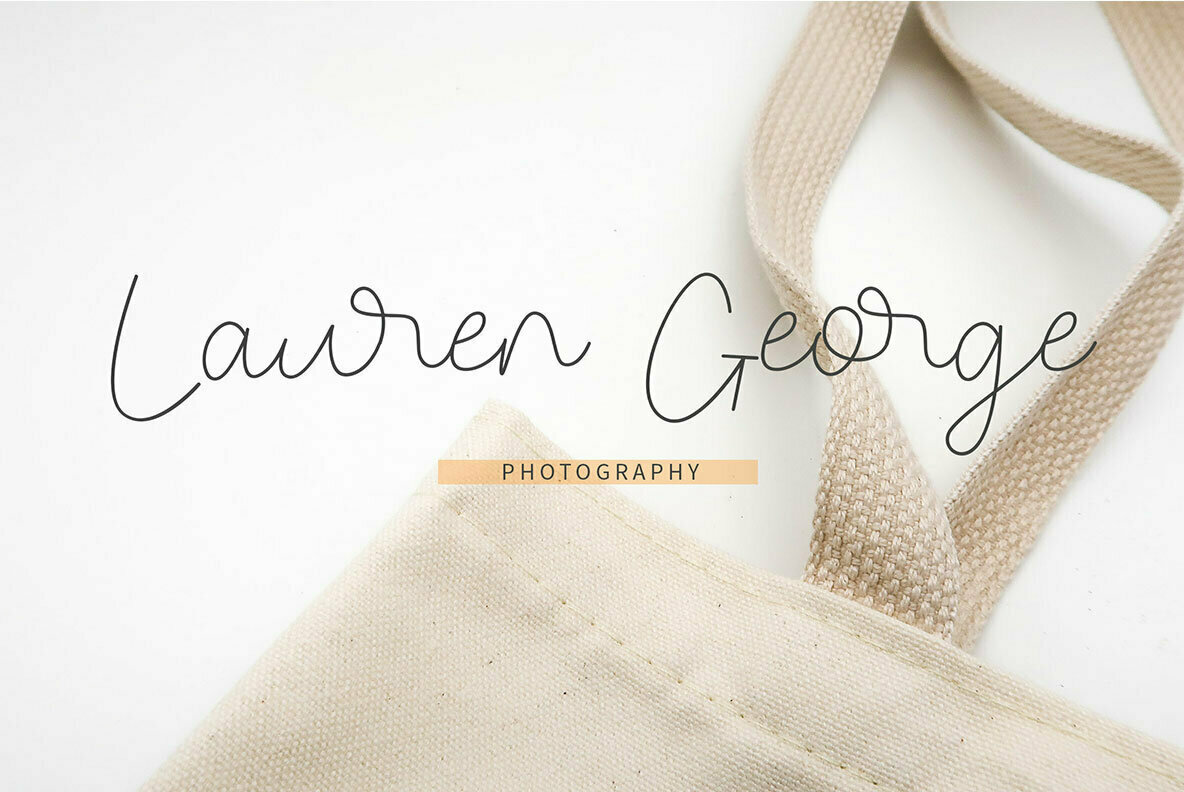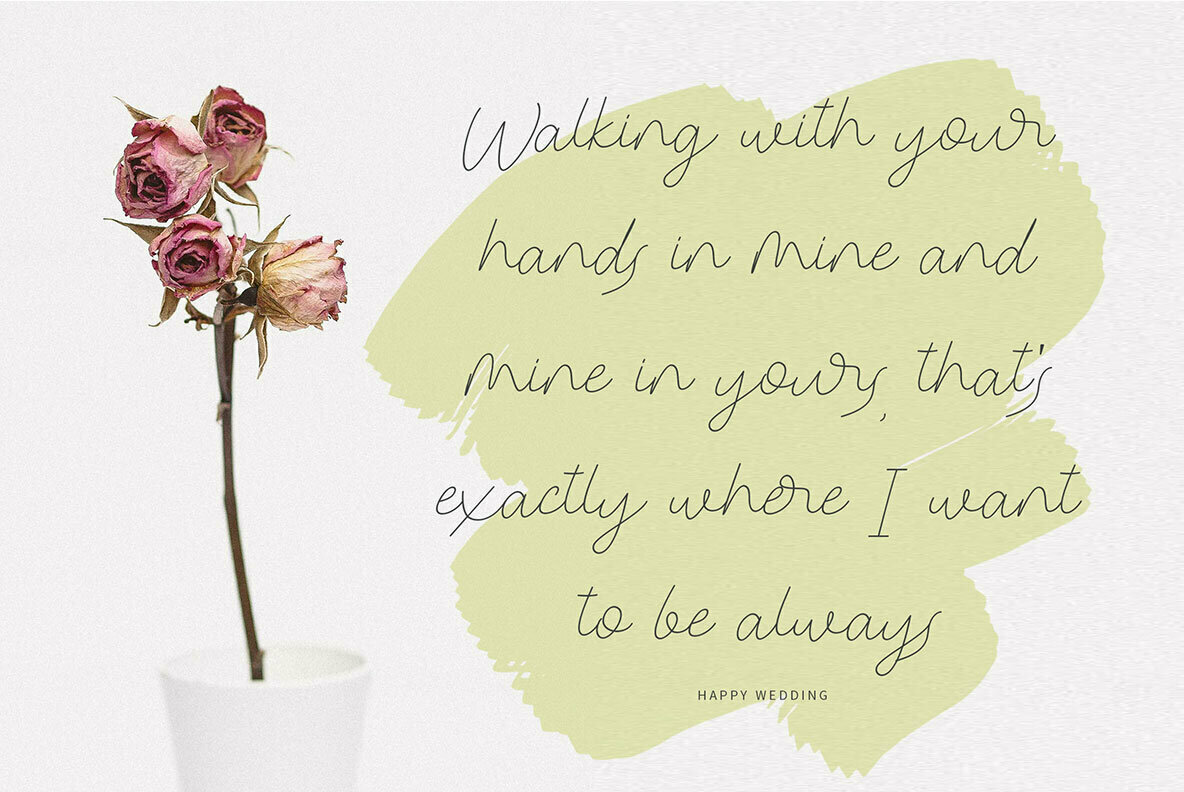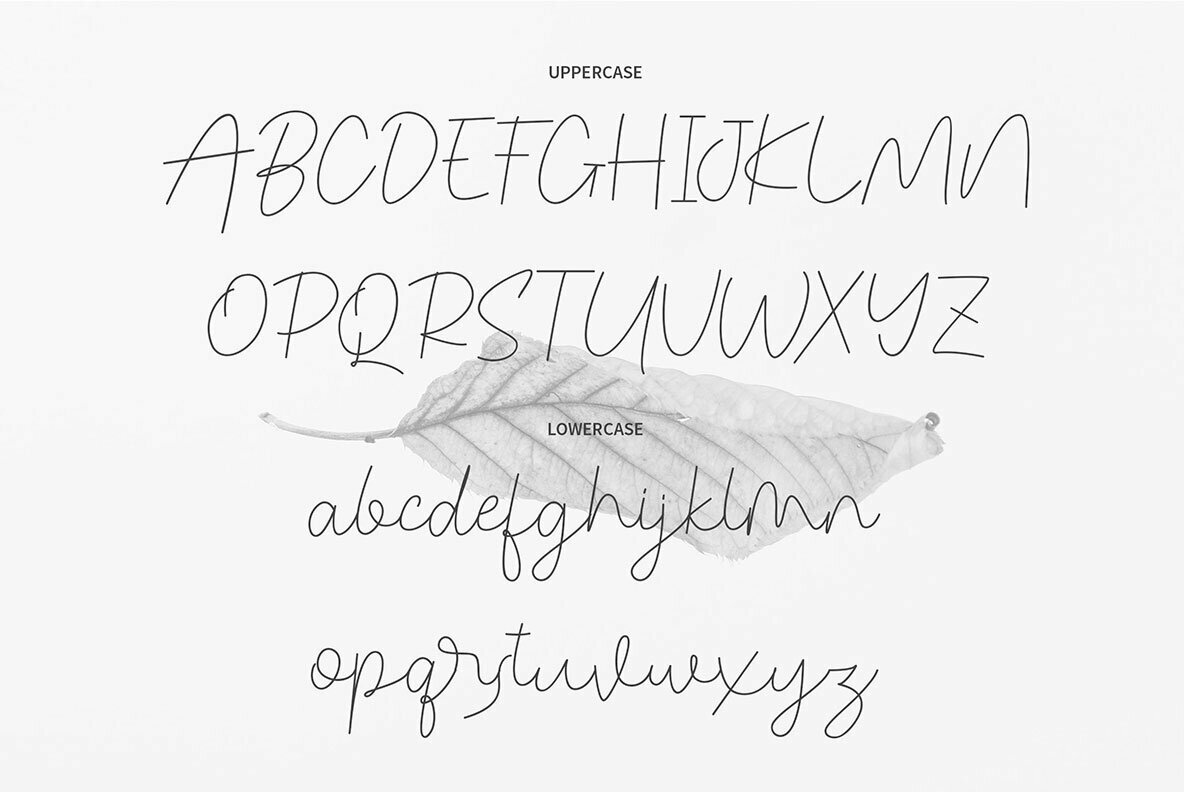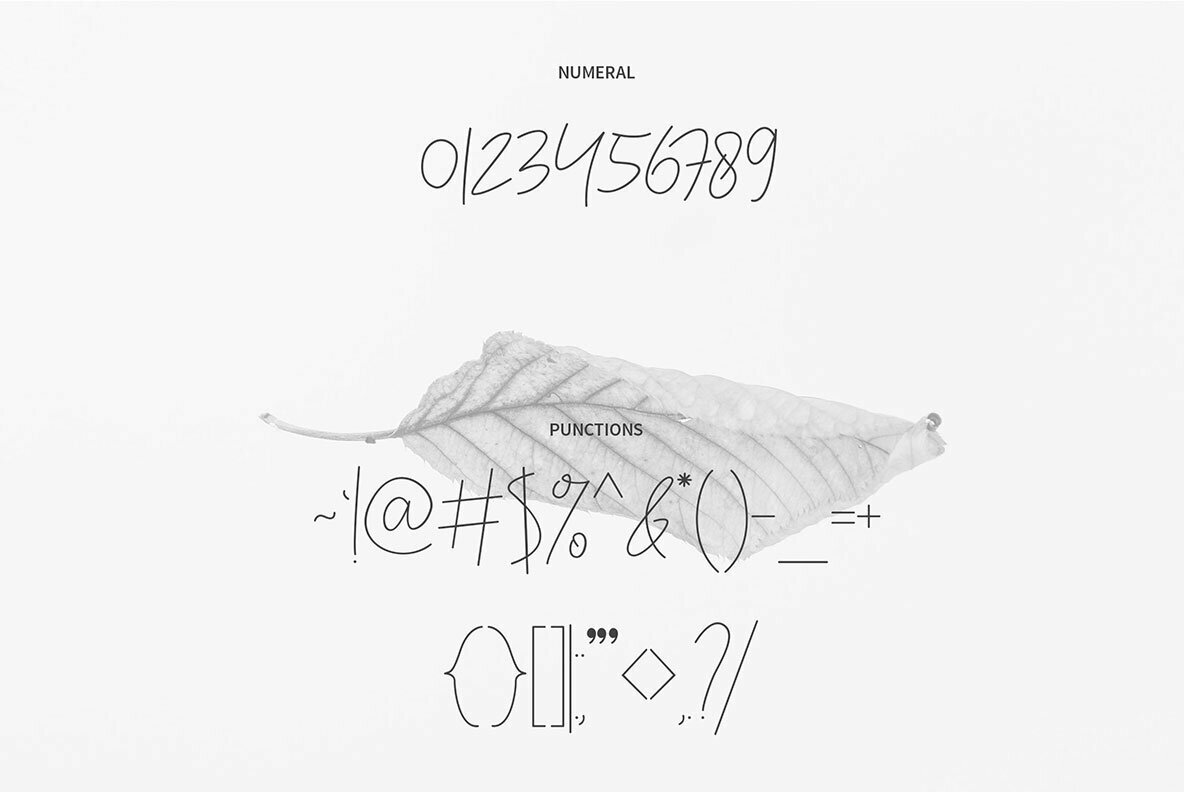
Congealed Signature Font
Congealed Signature
Congealed Signature is a distinctive script font that marries elegance with luxury. Its graceful curves and stylish intricacies make it an ideal choice for professional graphic designers seeking a touch of sophistication in their projects. Features: Whether employed for impactful headlines or intricate social media graphics, Congealed Signature brings a unique beauty to every project.Congealed Signature: Elegant Script with Luxurious Appeal